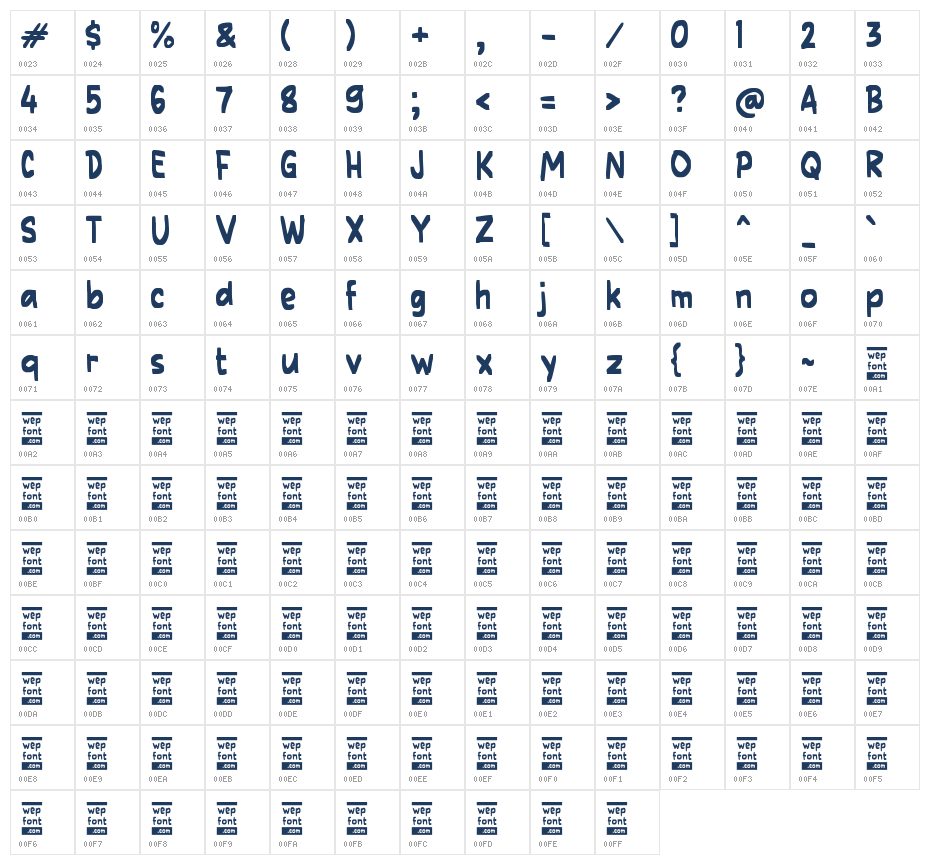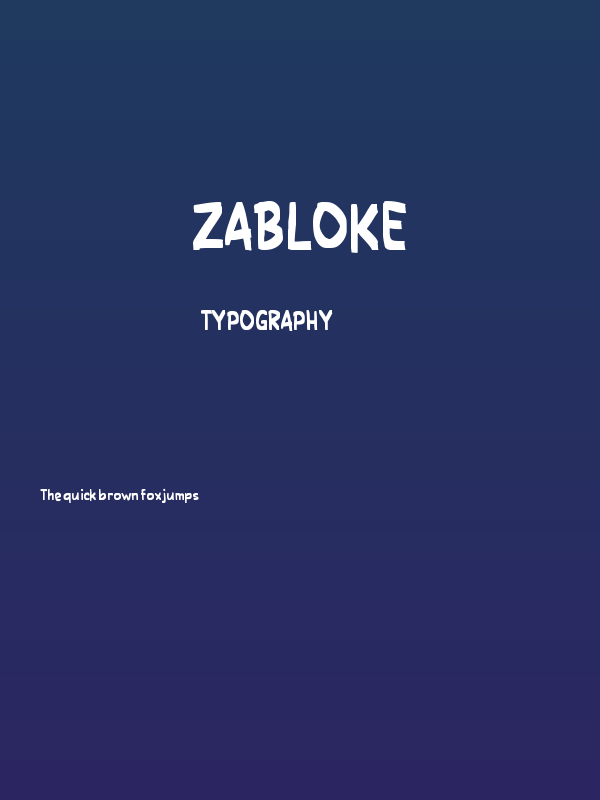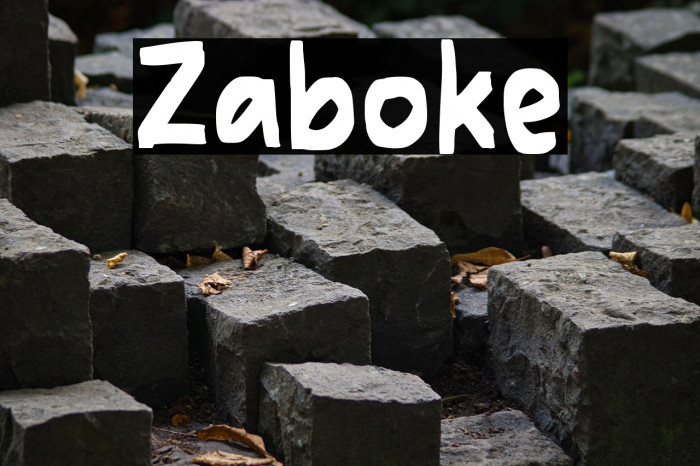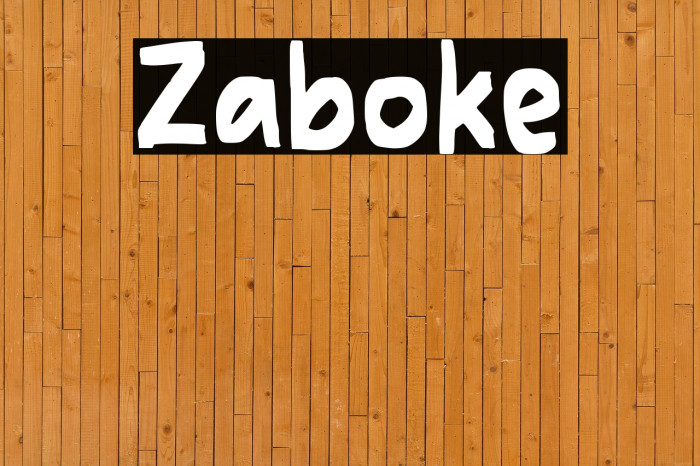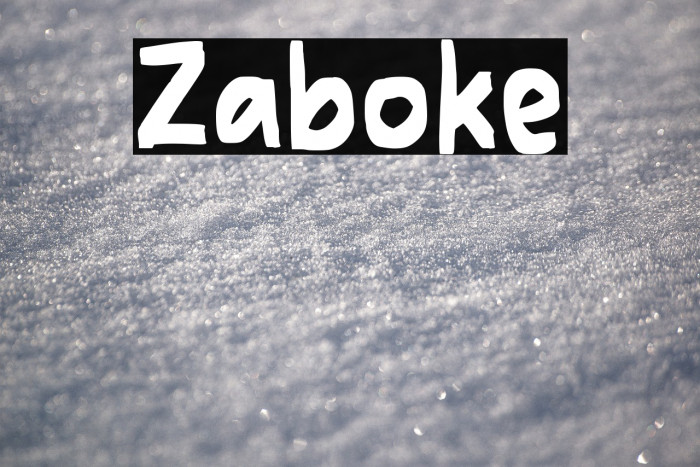
Zabloke Font
Zabloke Description
A playful, bold, and rounded display font with irregular, hand-drawn characteristics.
| Overall Style | Casual, Playful, Hand-drawn |
| Use Case | Headlines, Posters, Children's books, Logos |